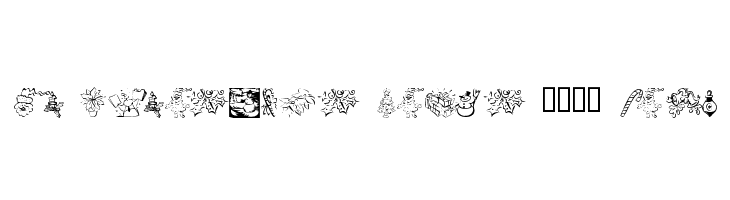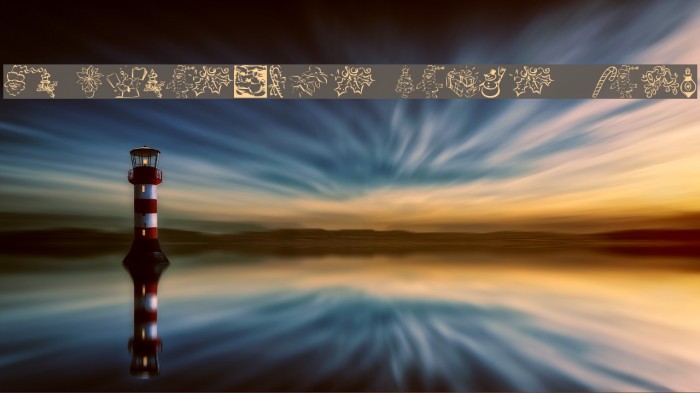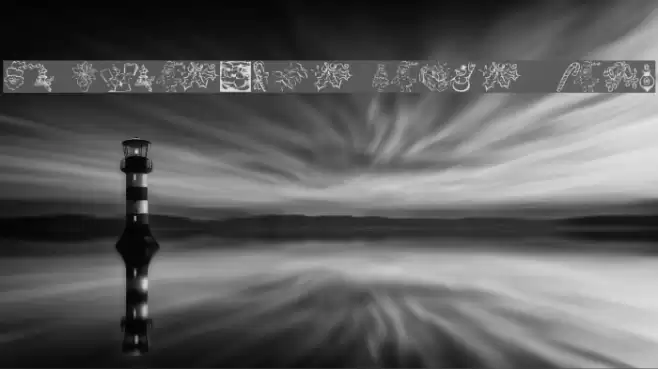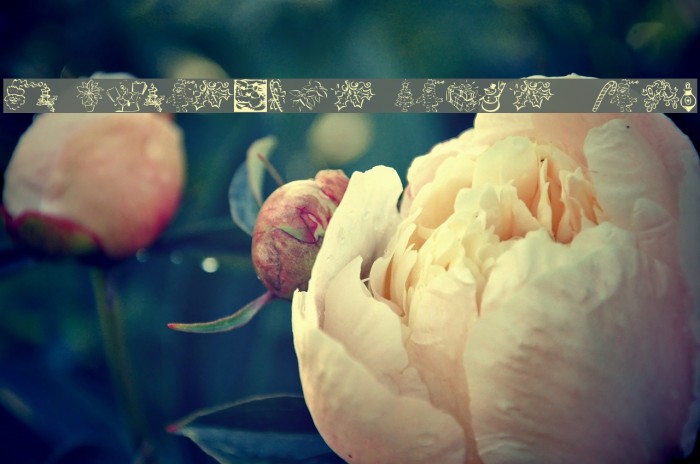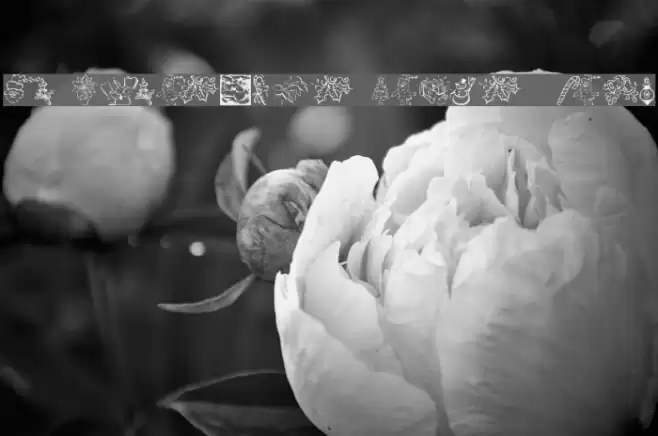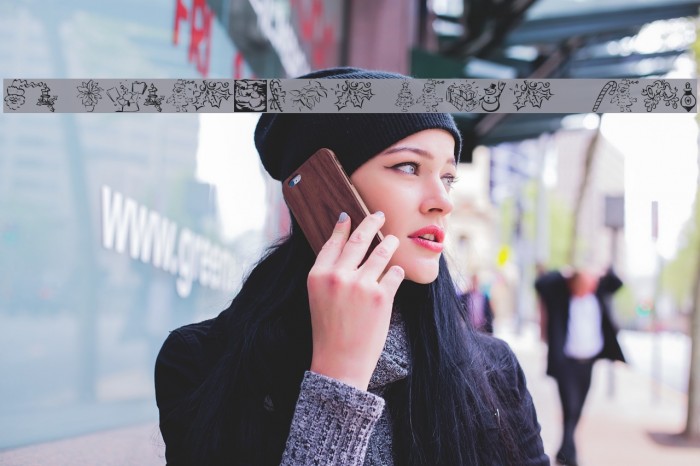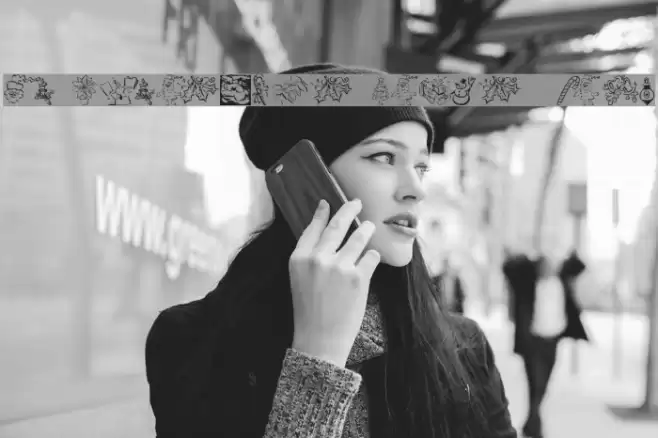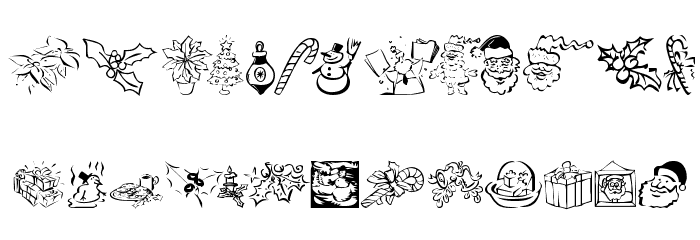
KR Christmas Dings 2004 Five Font
KR Christmas Dings 2004 Five Description
This decorative font is a delightful collection of Christmas-themed dingbats, featuring a variety of festive symbols such as holly, snowmen, Santa Claus, Christmas trees, and gift boxes. Each character is intricately designed to capture the essence of the holiday season, making it perfect for adding a whimsical touch to any project. The illustrations are detailed and playful, offering a charming and nostalgic feel. The font is ideal for creating holiday cards, festive banners, and seasonal decorations. Its unique style brings a sense of joy and celebration, embodying the spirit of Christmas with every character.
| Use Case | Logos, Headlines |
| Proposed Projects | Ideal for holiday cards, festive banners, seasonal decorations, and Christmas-themed crafts. |